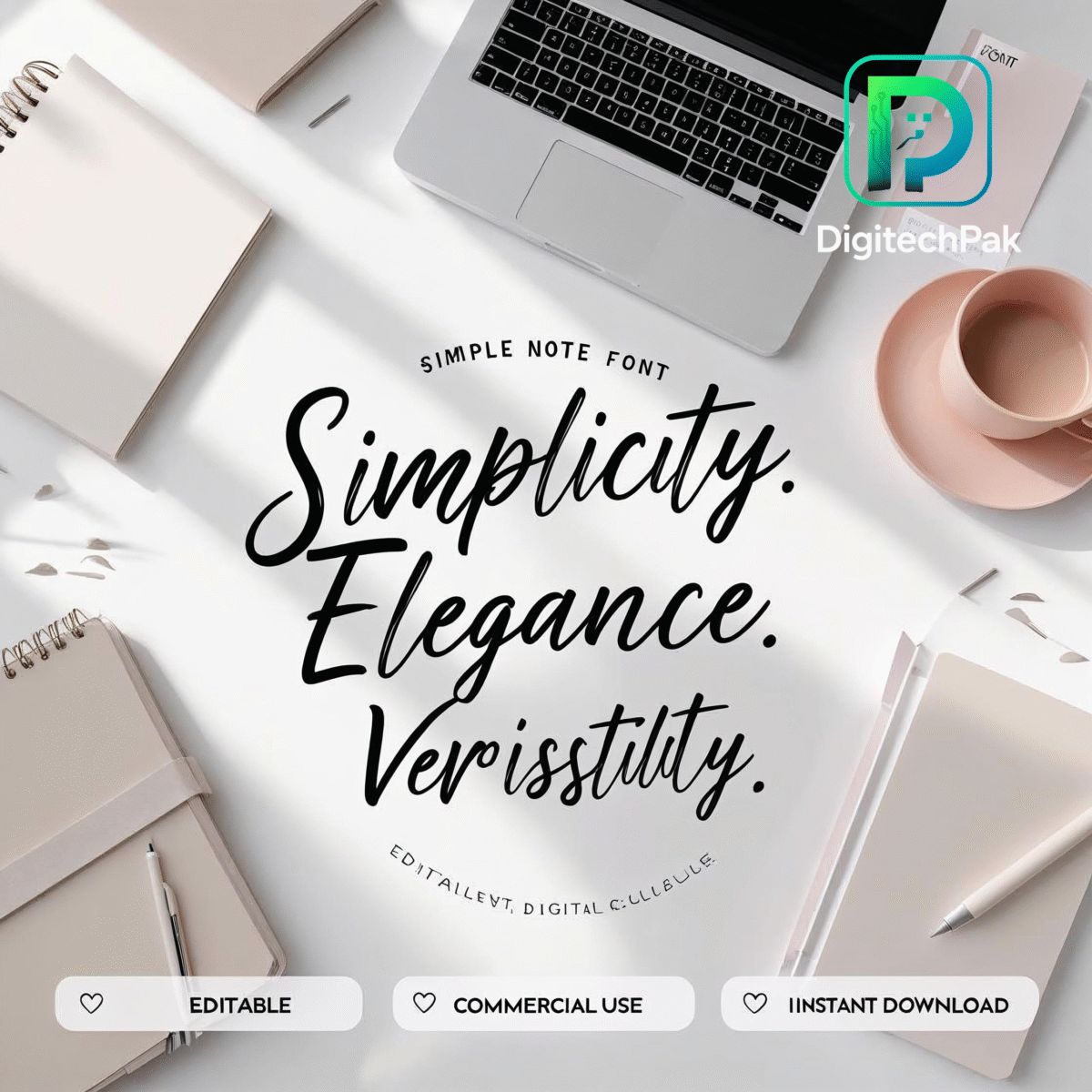
✨ Introducing the Simple Note Font by DigiTechPak
Simple Note Font is a sleek, clean, and versatile typeface crafted for digital creators who value both aesthetics and performance. Whether you’re designing a blog post, social media ad, or branding package — this font adapts beautifully.